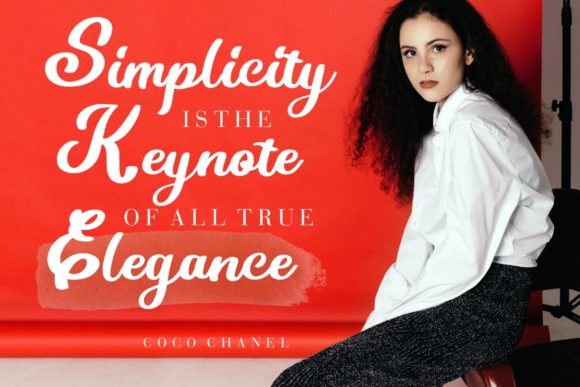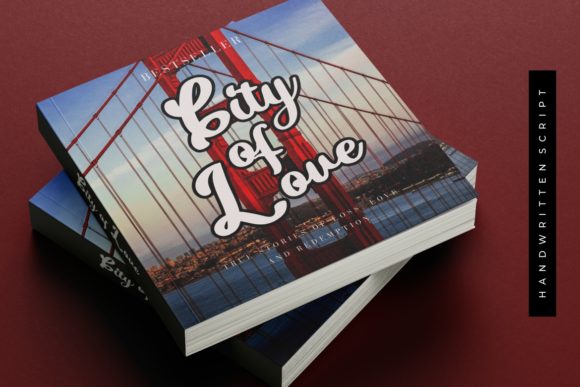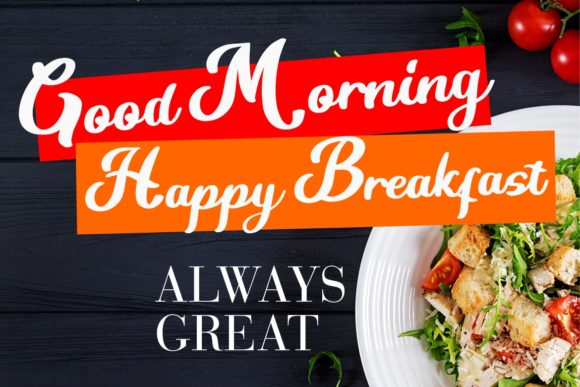
Introduction to Kamilya Font
Kamilya is a delicate, elegant and flowing handwritten font.
It has beautiful and well balanced characters and as a result, it matches a wide pool of designs Add it to your most creative ideas and notice how it makes them come alive.
Key Features of Kamilya Font